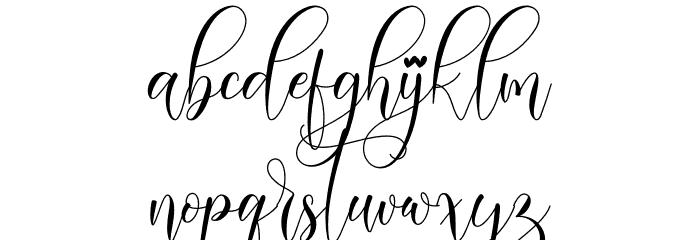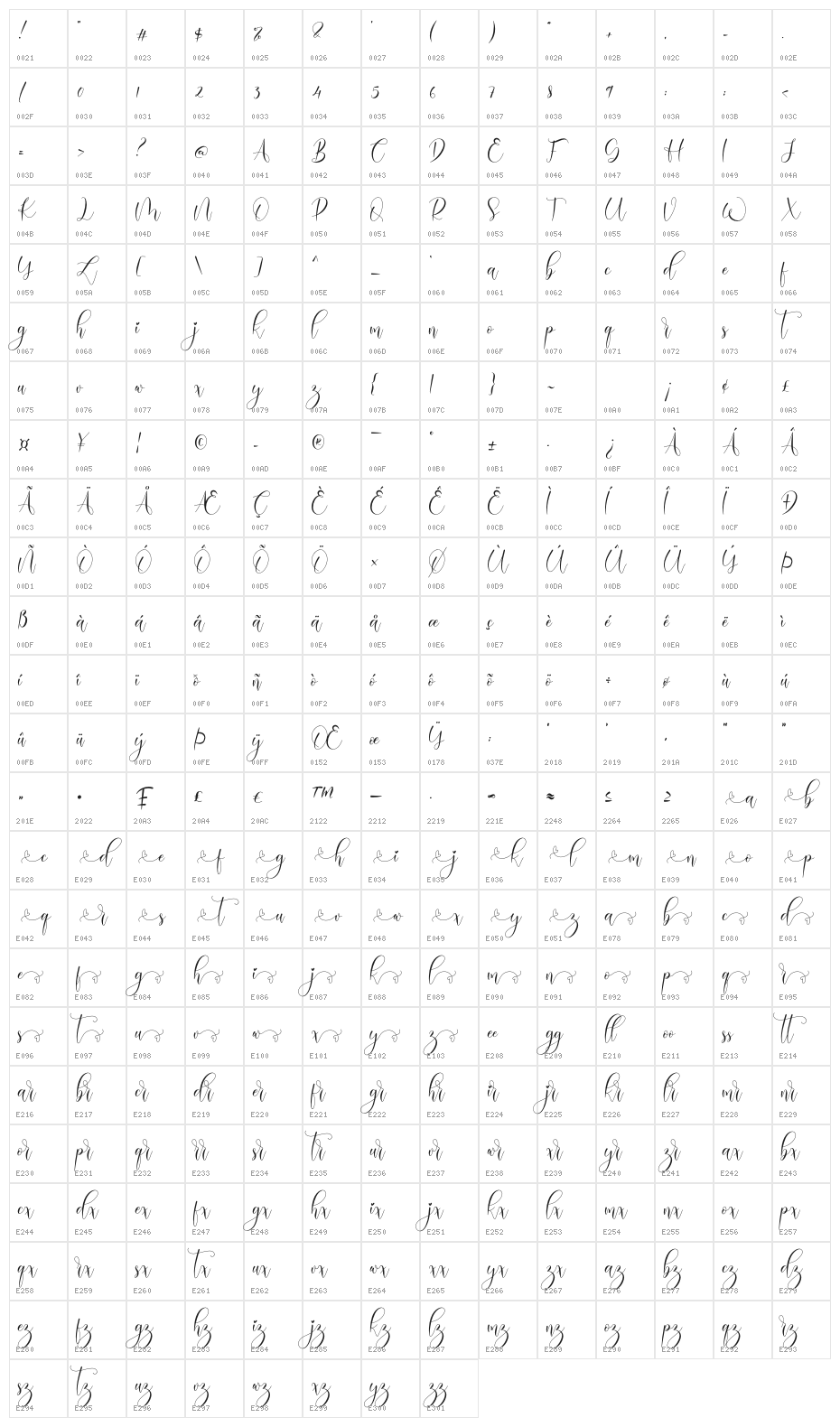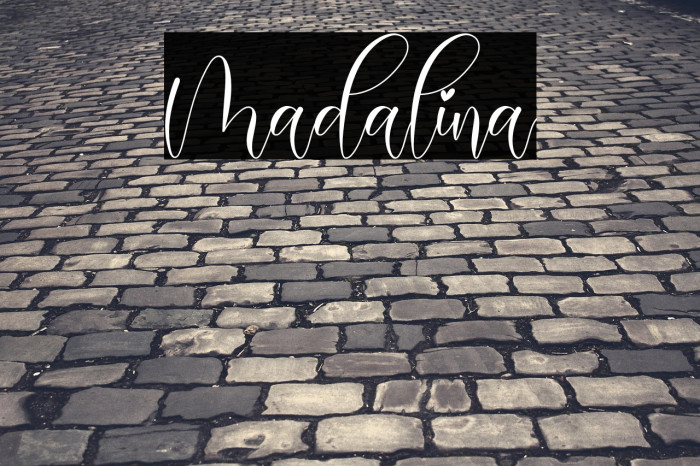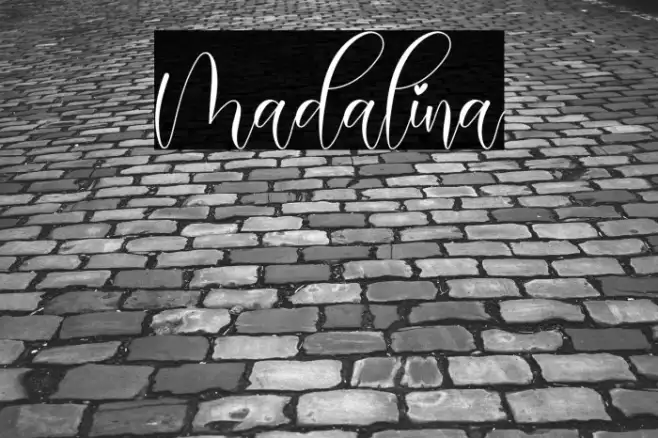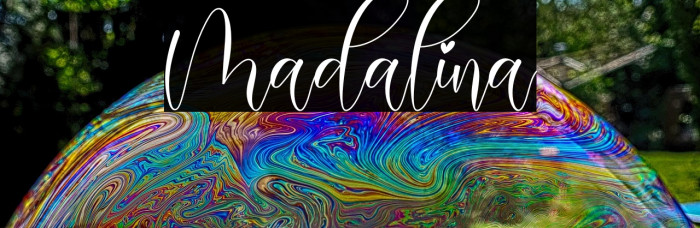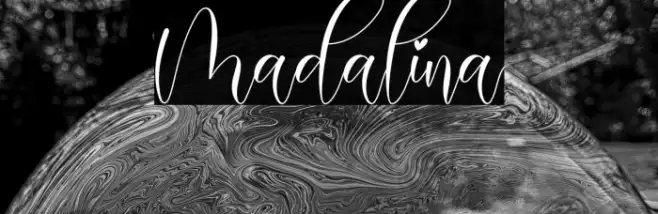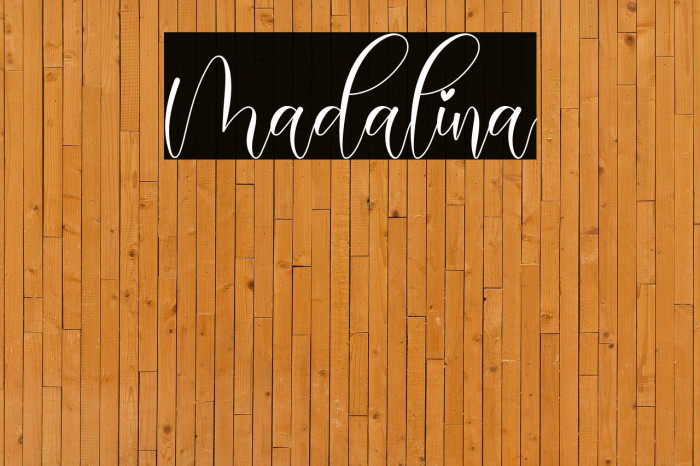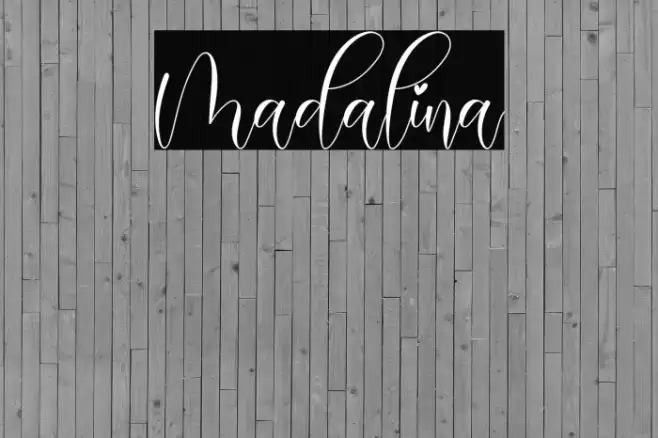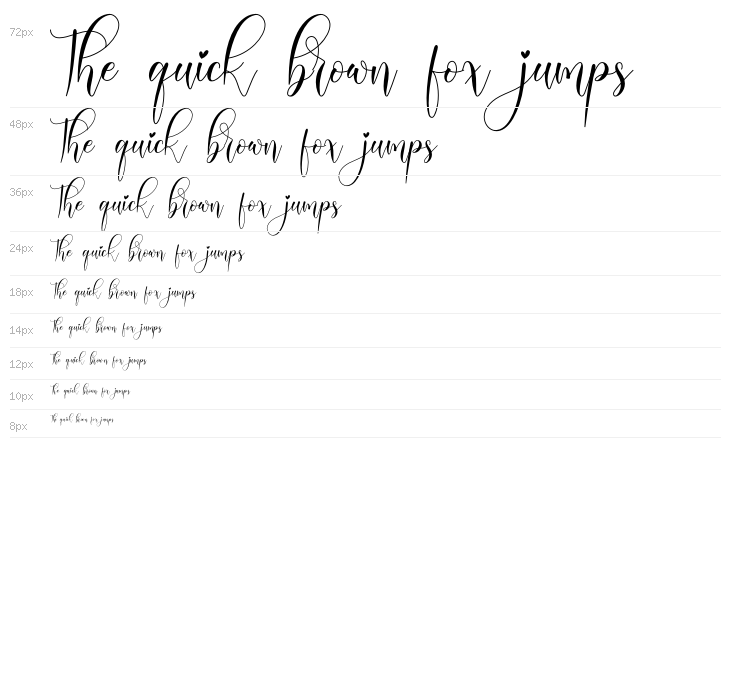
Madalina Font
This elegant script font features flowing, interconnected letters with a sophisticated and artistic flair. The uppercase letters are tall and graceful, with sweeping curves and loops that give a sense of movement and fluidity. The lowercase letters maintain a consistent style, with delicate strokes and a slightly more compact form. Numbers and special characters are designed to complement the overall aesthetic, maintaining the same elegant and flowing style. This font is perfect for adding a touch of class and elegance to any project, with its intricate details and stylish appearance.
An elegant, flowing script font with interconnected letters and artistic flair.
- Font: Madalina
- Proposed Projects: Ideal for wedding invitations, elegant branding, high-end product packaging, and artistic posters.
- Category: Script
- Overall Style: Elegant, Artistic
- Use Case: Logos, Invitations, Decorative text